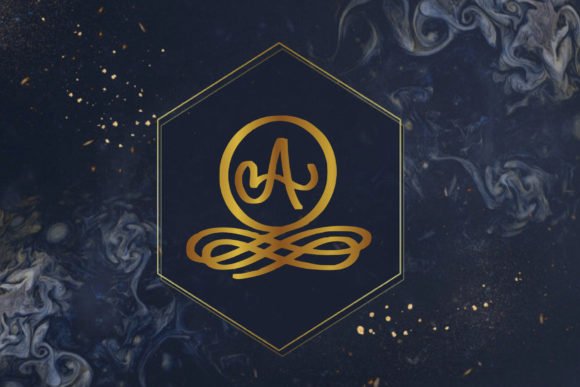
Unlocking the Art of Personalized Design with Elegant Monogram Font
Have you ever been brainstorming ideas for a special project, and suddenly, a spark of creativity hits you? Maybe it’s a custom wedding invitation, a personalized birthday card, or a unique logo for your brand. Whatever it is, you want it to be nothing short of extraordinary. That’s where the Elegant Monogram Font comes in – a beautiful decorative font that adds a touch of sophistication and elegance to your designs.
This stunning font is perfect for creating original and outstanding designs that make a lasting impression. Whether you’re a seasoned designer or a creative enthusiast, the Elegant Monogram Font is an invaluable tool in your design arsenal. Its versatility and unique style make it an ideal choice for a wide range of applications, from stationery and event invitations to branding and marketing materials.
Elegant Monogram Font Key Features
- Unique Characteristics: The Elegant Monogram Font features intricate, hand-drawn designs with elegant flourishes, perfect for creating sophisticated and luxurious designs.
- Monogram Options: The font includes a range of monogram options, including single-letter, two-letter, and three-letter combinations, allowing for endless customization possibilities.
- Script and Ligature Support: The font includes a wide range of script and ligature combinations, ensuring that the text flows smoothly and naturally.
Elegant Monogram Font Review
Overall, I’d say the Elegant Monogram Font is a solid choice for anyone looking to add a touch of sophistication to their designs. Here are some things that work well: ✨
- Unique, elegant design: The font’s monogram style gives it a classic, high-end feel that’s perfect for luxury brands or special occasions.
- Highly customizable: The font offers a range of options for customizing the monogram, including different letter combinations and font sizes.
- Easy to use: The font is well-behaved and works seamlessly with most design software.
That being said, there are a few limitations to consider: ⚠️
- Limited font sizes: While the font is highly customizable, the number of available font sizes is relatively limited, which may not be ideal for certain design projects.
- No bold or italic styles: The font only comes in regular weight, which may not be suitable for designs that require bold or italic text.
- Not ideal for body text: Due to its ornate design, the font may not be the best choice for large blocks of body text.
Overall, I’d give the Elegant Monogram Font 4 out of 5 stars. It’s a beautiful, elegant font that’s perfect for special occasions or luxury brands, but may not be the best choice for every design project.
Tips for Getting the Most Out of Elegant Monogram Font
Use Elegant Monogram Font for special occasions, such as weddings, anniversaries, or graduations.
Combine Elegant Monogram Font with other design elements, such as flowers or ribbons, to create a cohesive look.
Experiment with different font sizes, colors, and alignment to achieve the desired effect.
Elegant Monogram Font is ideal for:
Anniversary and birthday cards
Graduation certificates and diplomas
Personalized gifts and accessories
Alternatives to Elegant Monogram Font
The Lobster font is a modern, cursive script font that is perfect for adding a touch of elegance and sophistication to your designs. It is ideal for use in invitations, greeting cards, and other formal documents where a classic, handwritten look is desired.
Compared to Elegant Monogram Font, Lobster has a more casual and relaxed feel, making it suitable for a wider range of applications. While Elegant Monogram Font is more formal and traditional, Lobster offers a more modern and trendy look.
The Great Vibes font is a beautiful, elegant script font that is reminiscent of classic calligraphy. It is perfect for use in high-end designs, such as luxury branding, wedding invitations, and fine art prints.